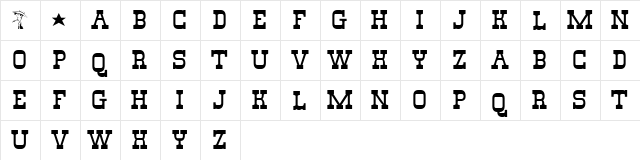
*Lucky Luke* Regular
| Foundry | P. A. Vannucci |
| Designer | P. A. Vannucci |
Design Context for *Lucky Luke* Typeface
*Lucky Luke* takes a measured approach to typography — its balanced proportions and neutral character make it a reliable workhorse for both digital and print work.